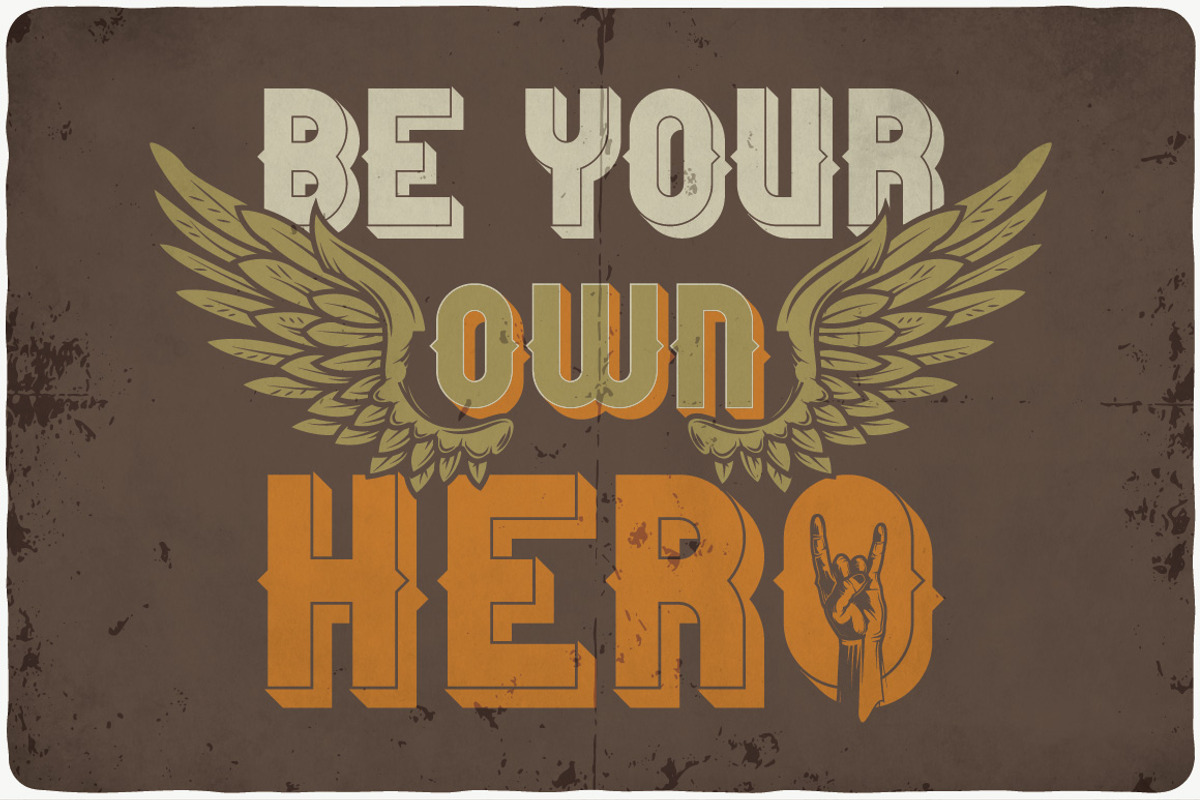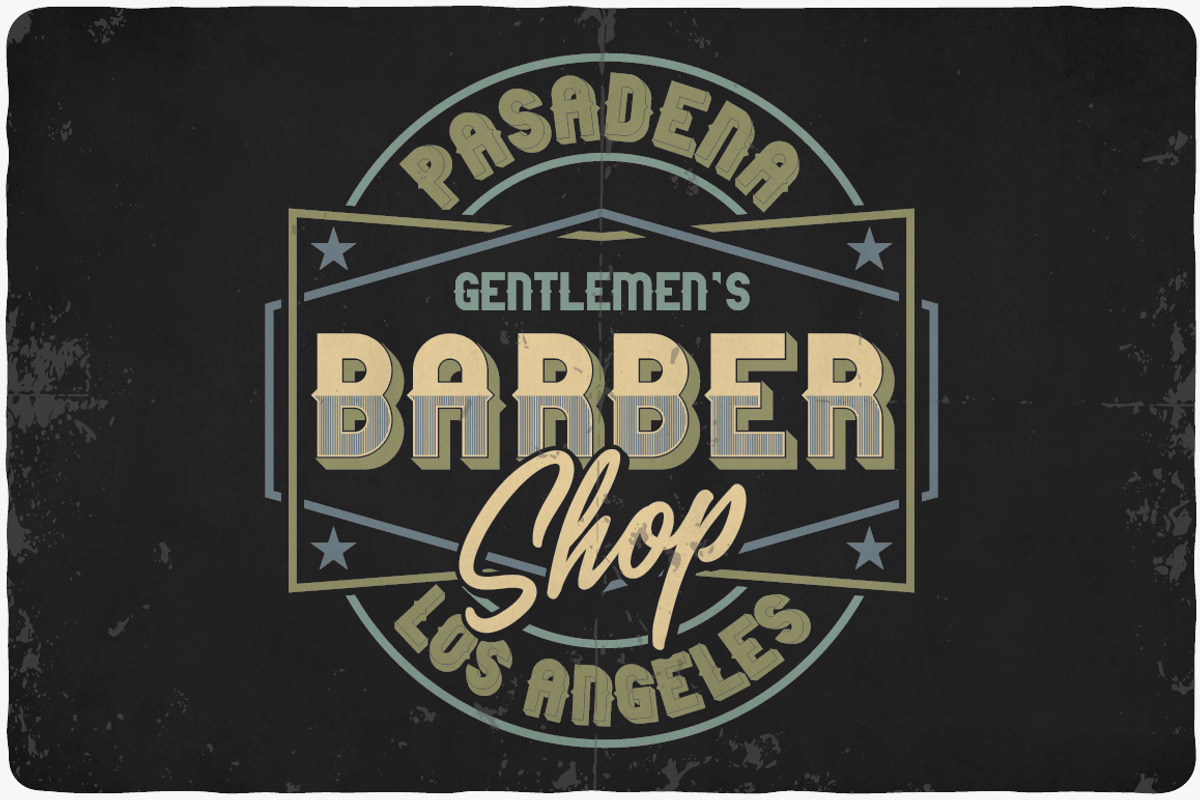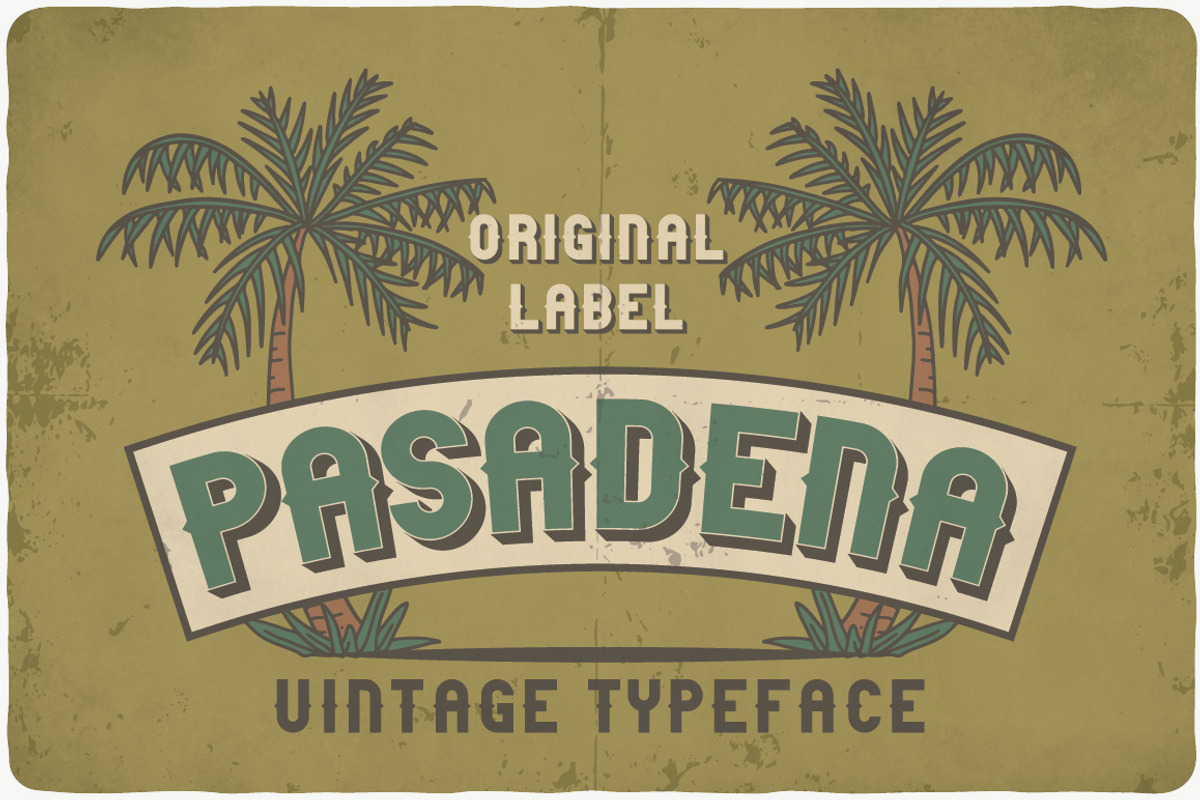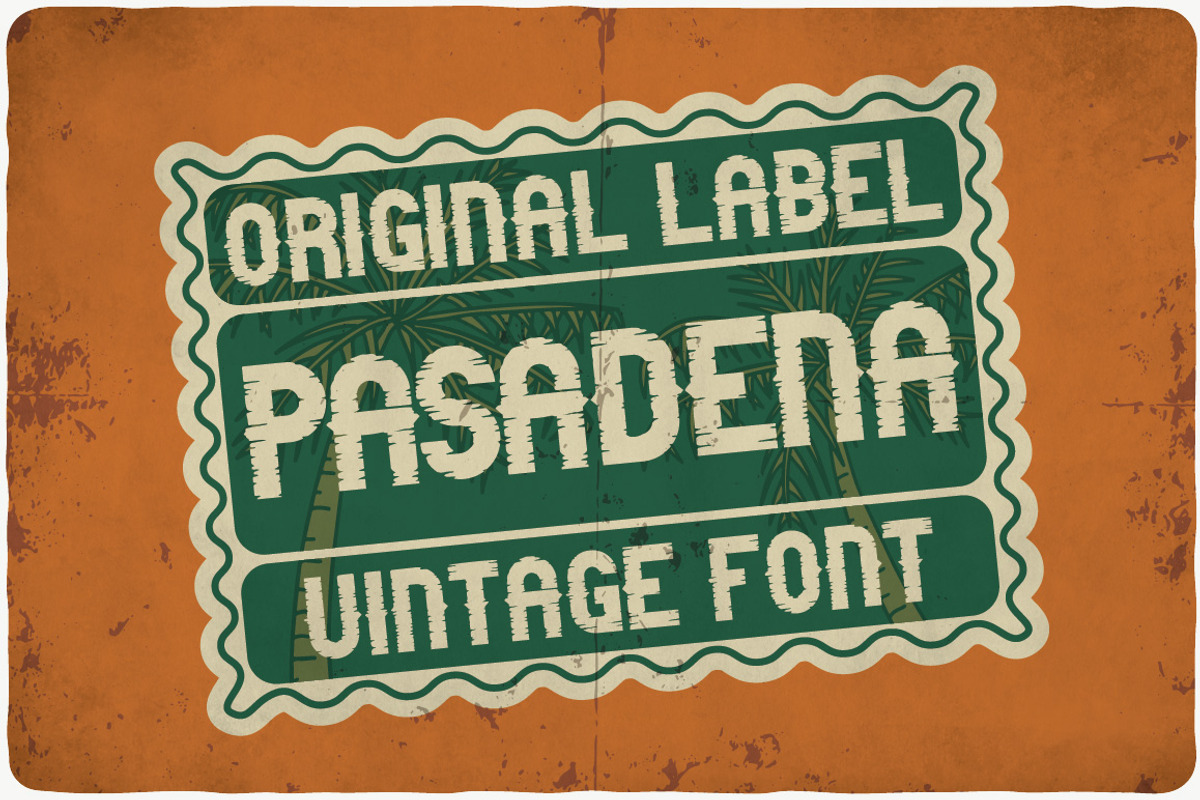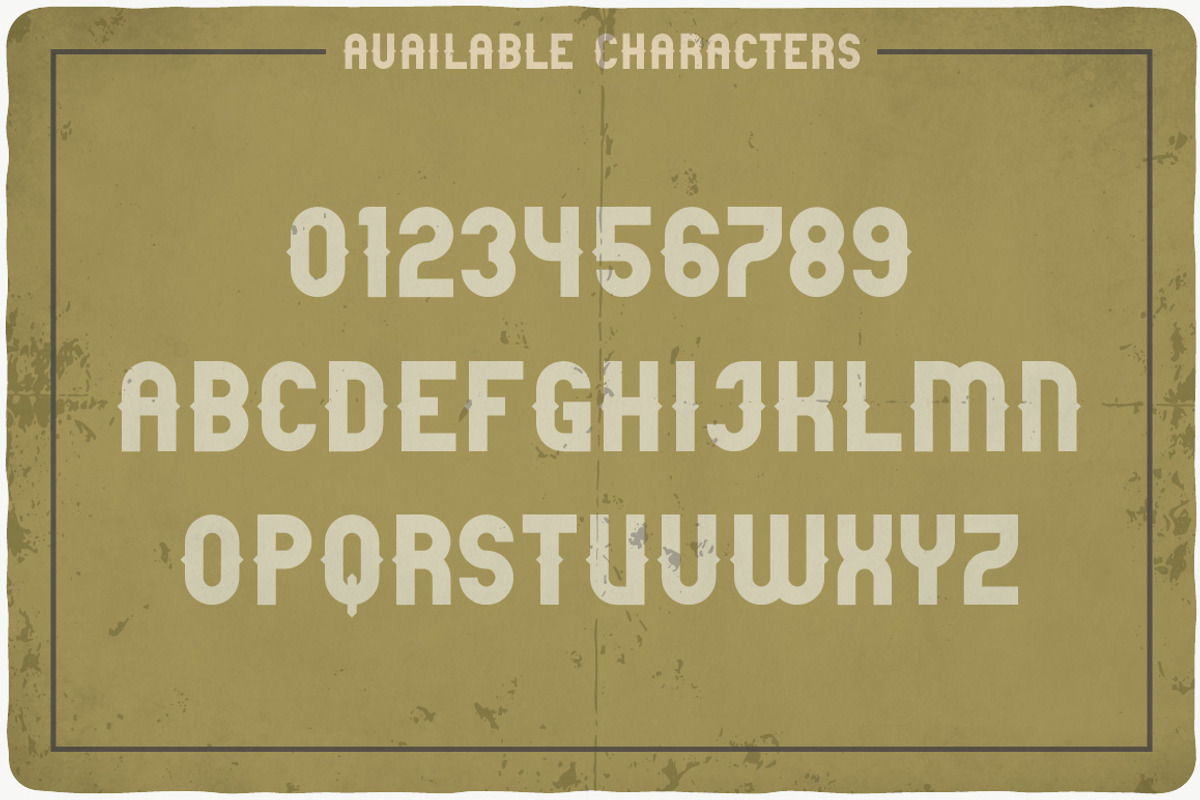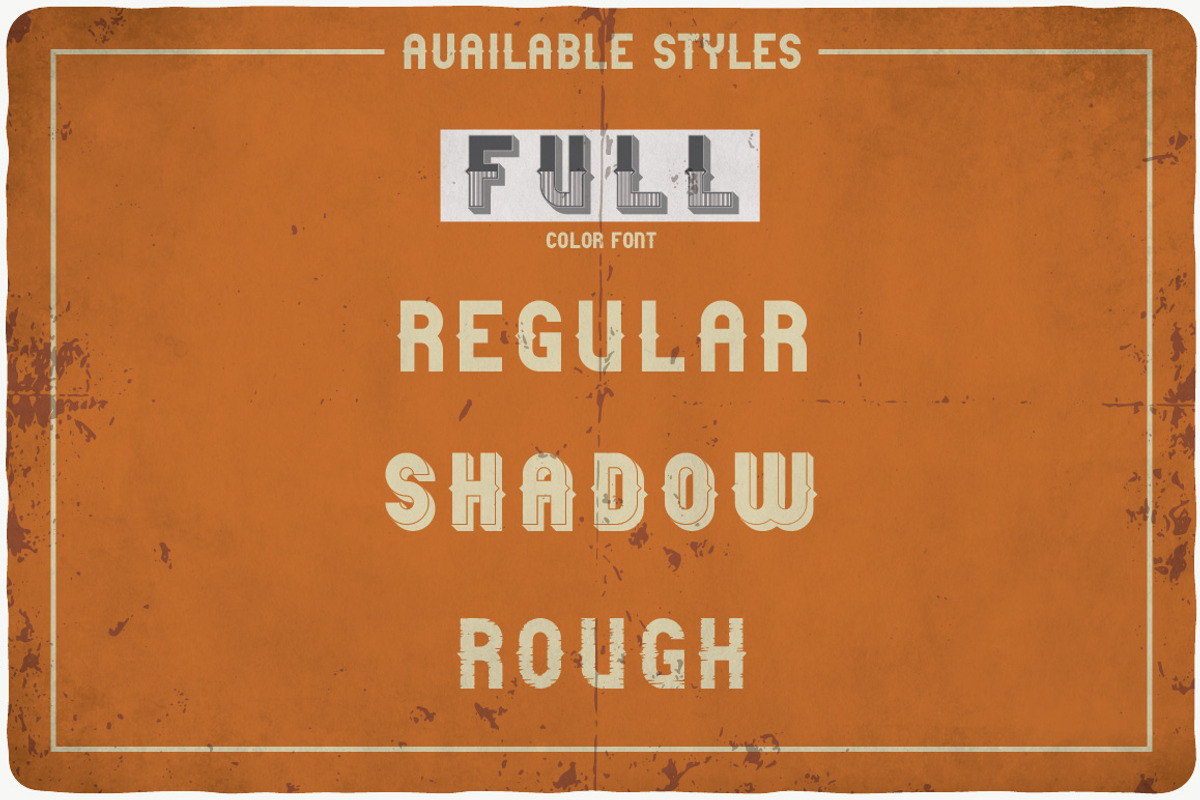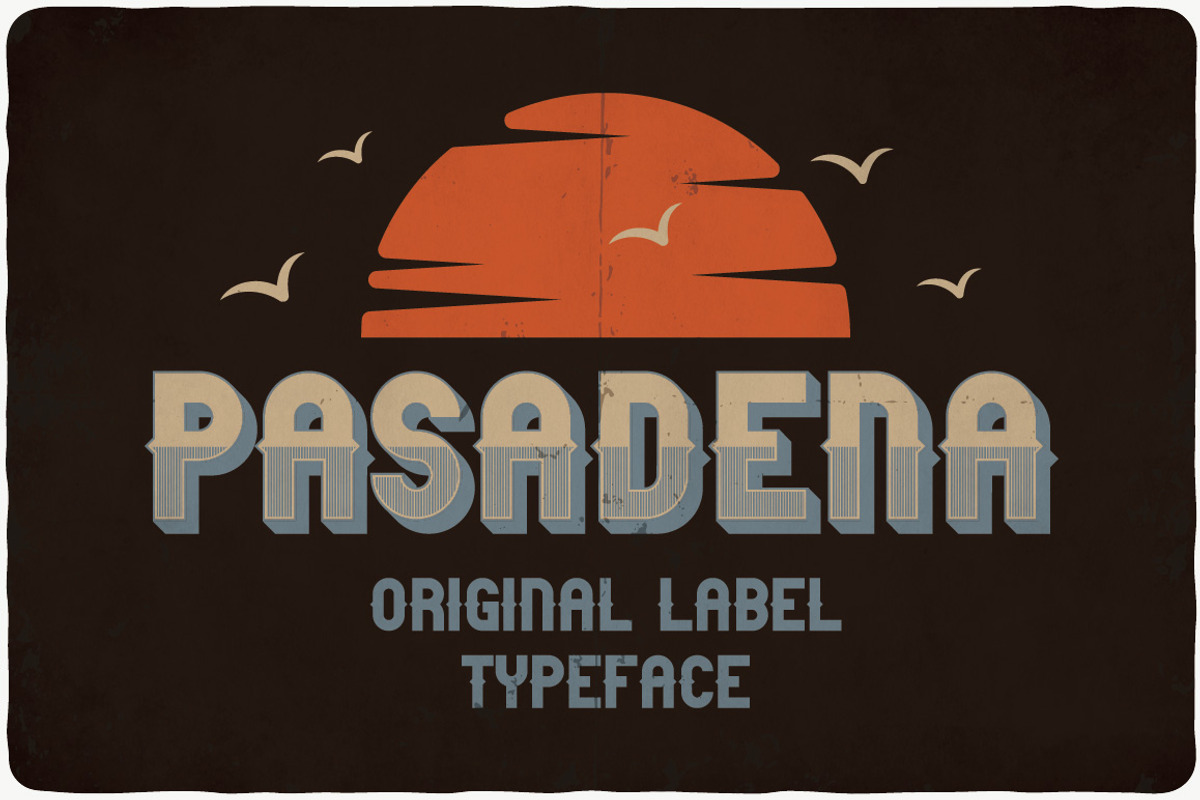
Pasadena typeface
Introducing a vintage look label typeface named "Pasadena". This typeface includes four styles, for sample look at 5th preview. Typeface will good viewed on any yours design.
- This typeface includes four styles, for sample look at 5th preview.